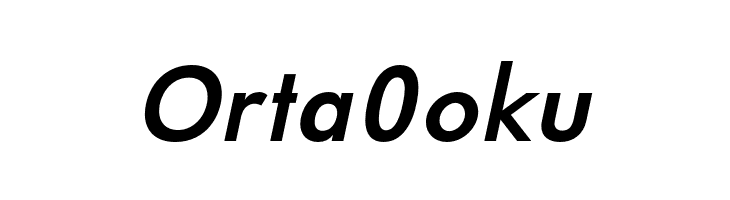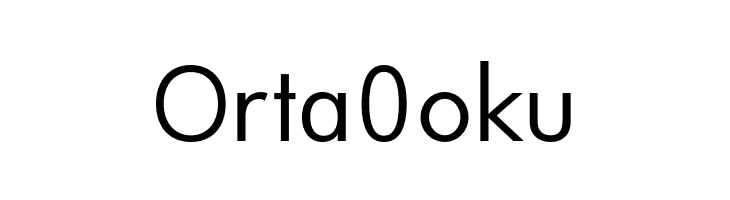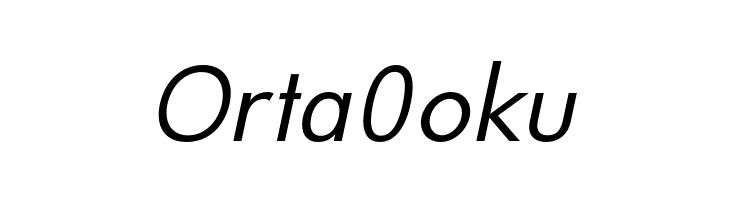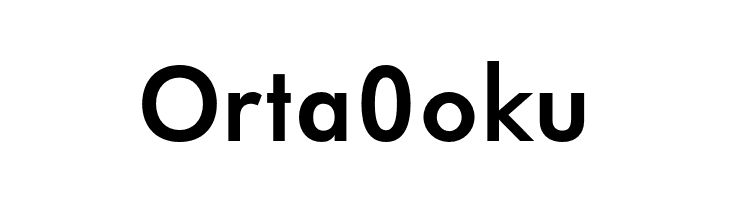
UniversalisADFPro-Bold Font
Font by Arkandis Digital Foundry
A bold, modern sans-serif font with geometric shapes and uniform strokes.
UniversalisADFPro-Regular Font
Font by Arkandis Digital Foundry
A modern sans-serif font with geometric shapes and uniform strokes.
UniversalisADFPro-BoldOblique Font
Font by Arkandis Digital Foundry
A bold, oblique font with a modern and dynamic style.
UniversalisADFPro-Oblique Font
Font by Arkandis Digital Foundry
A modern, oblique sans-serif font with clean lines and a professional appearance.